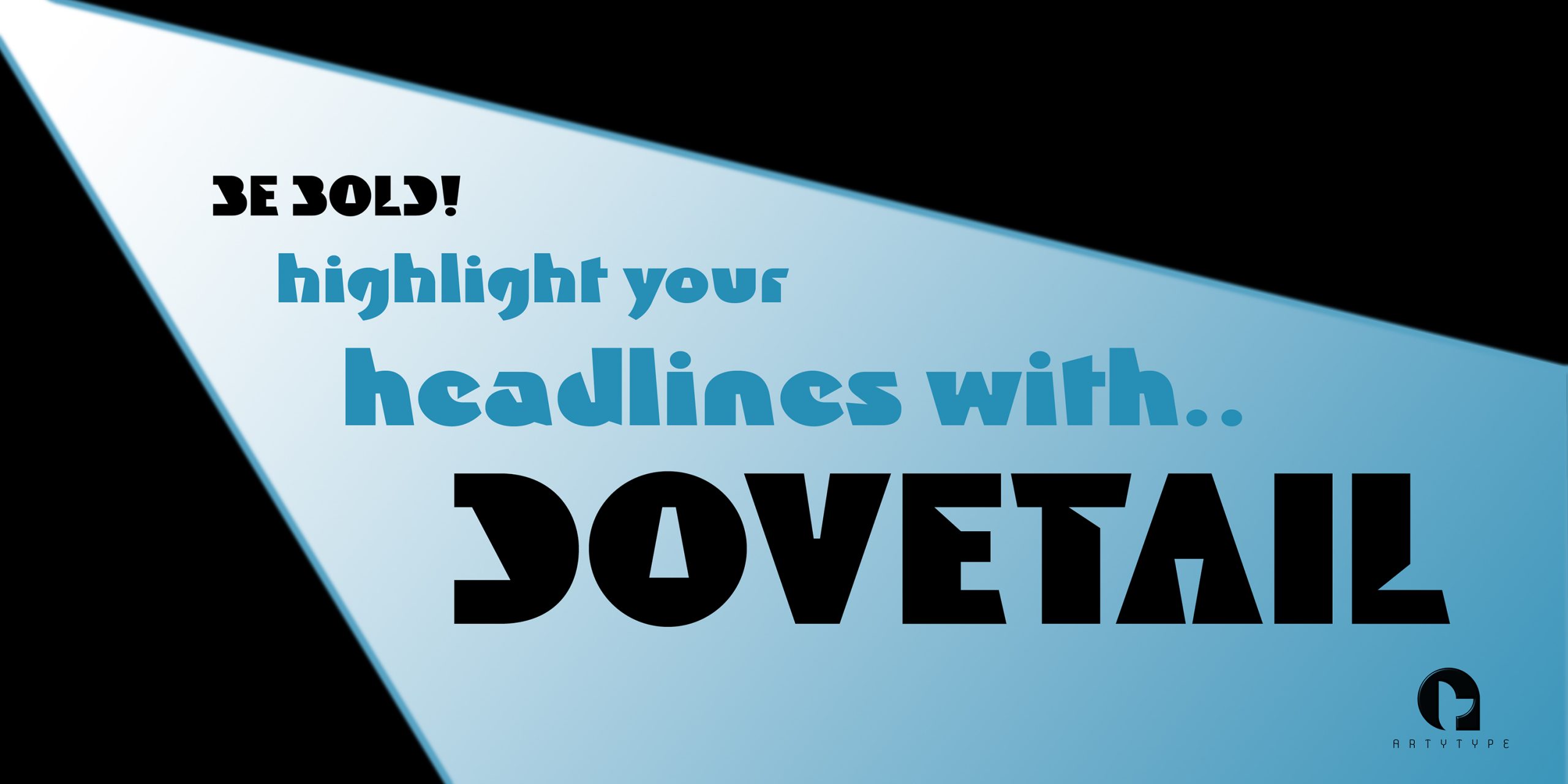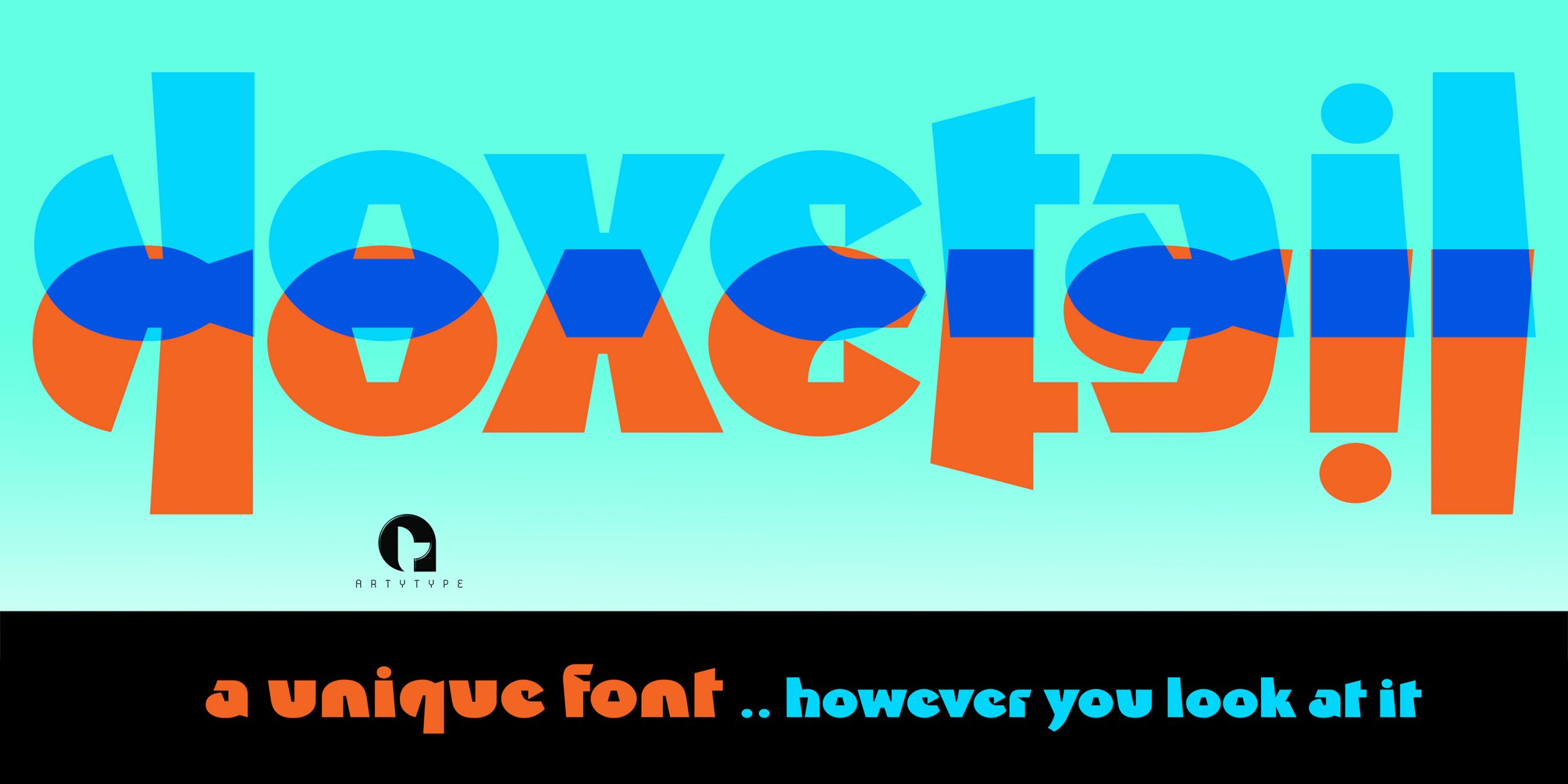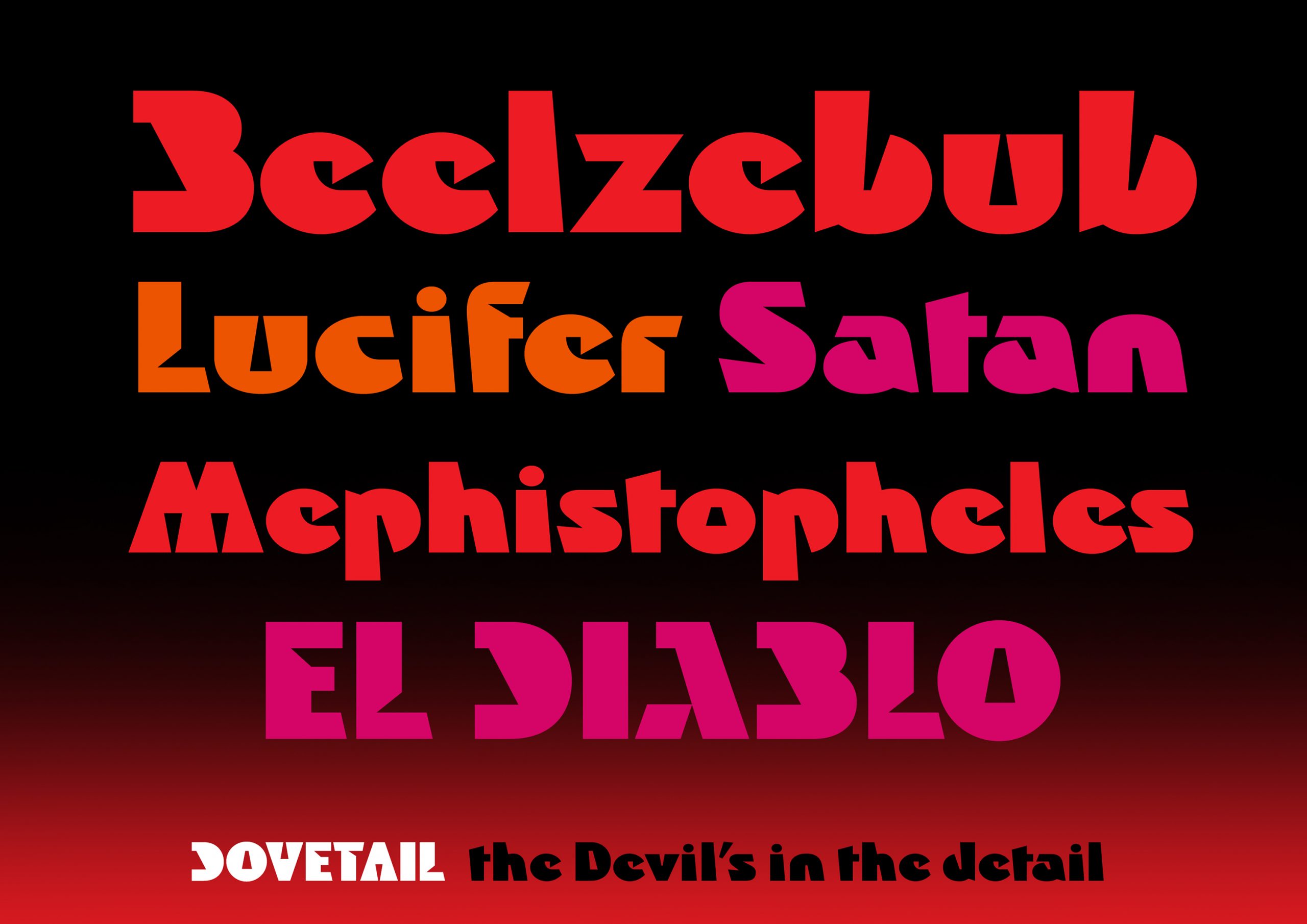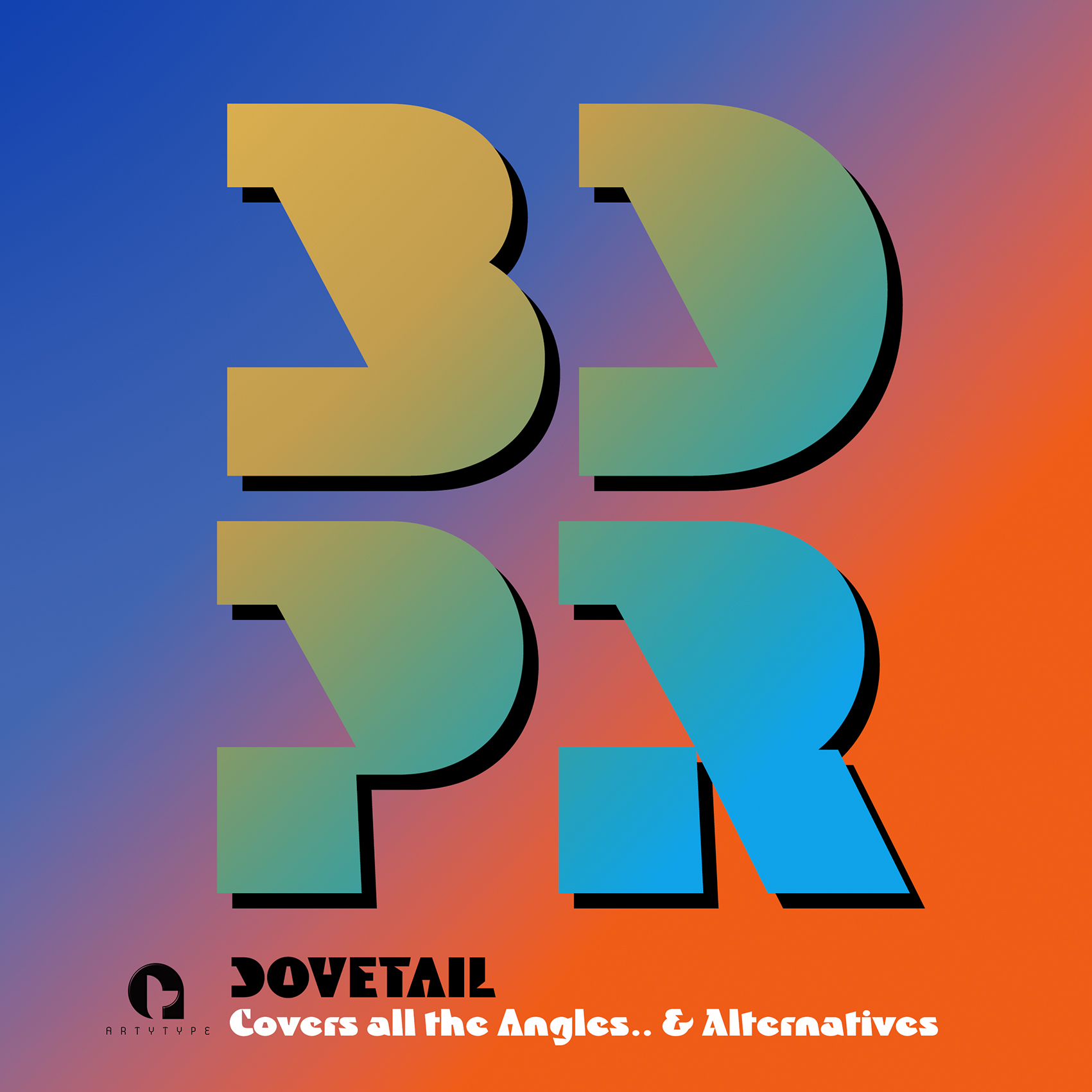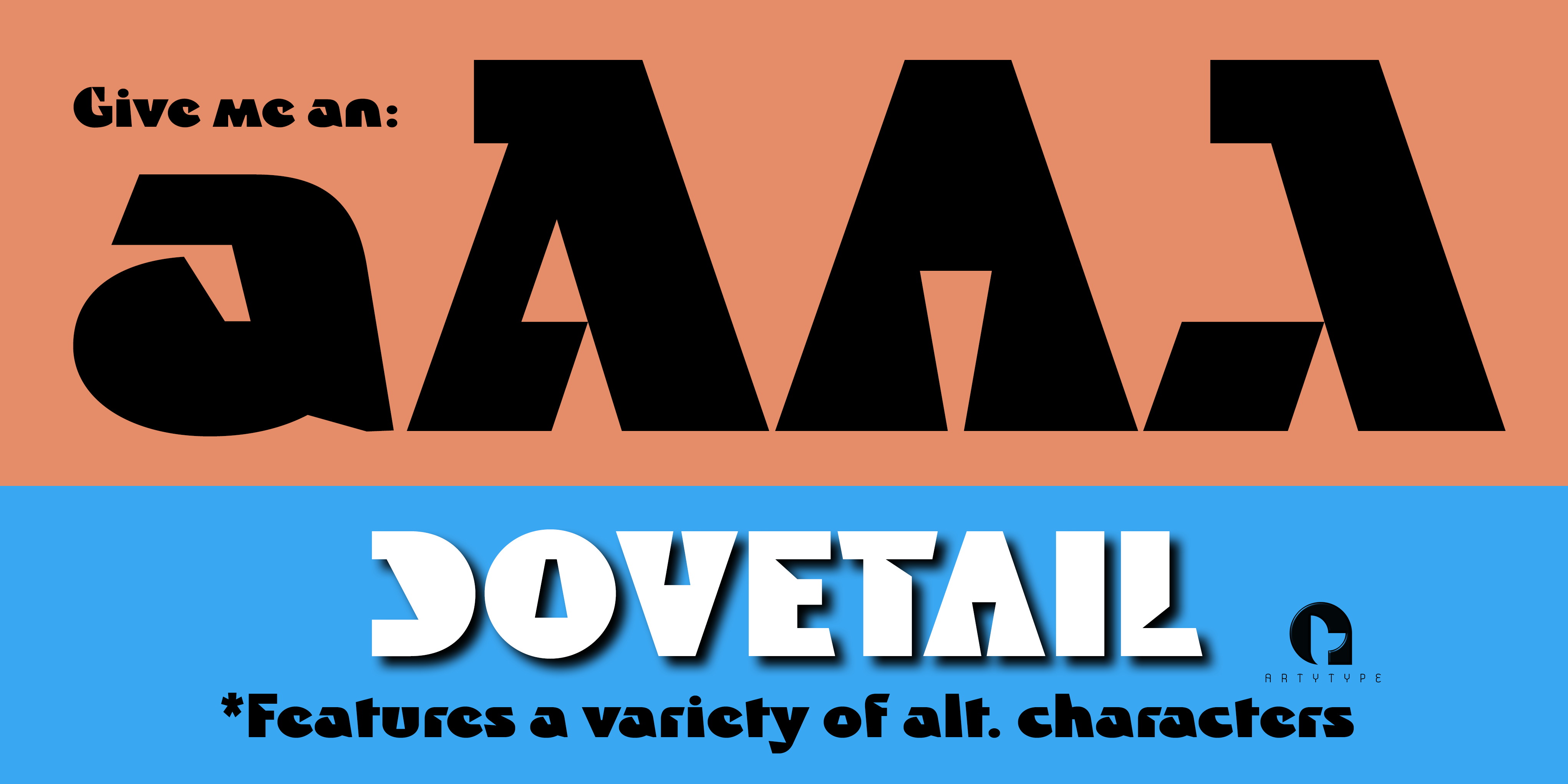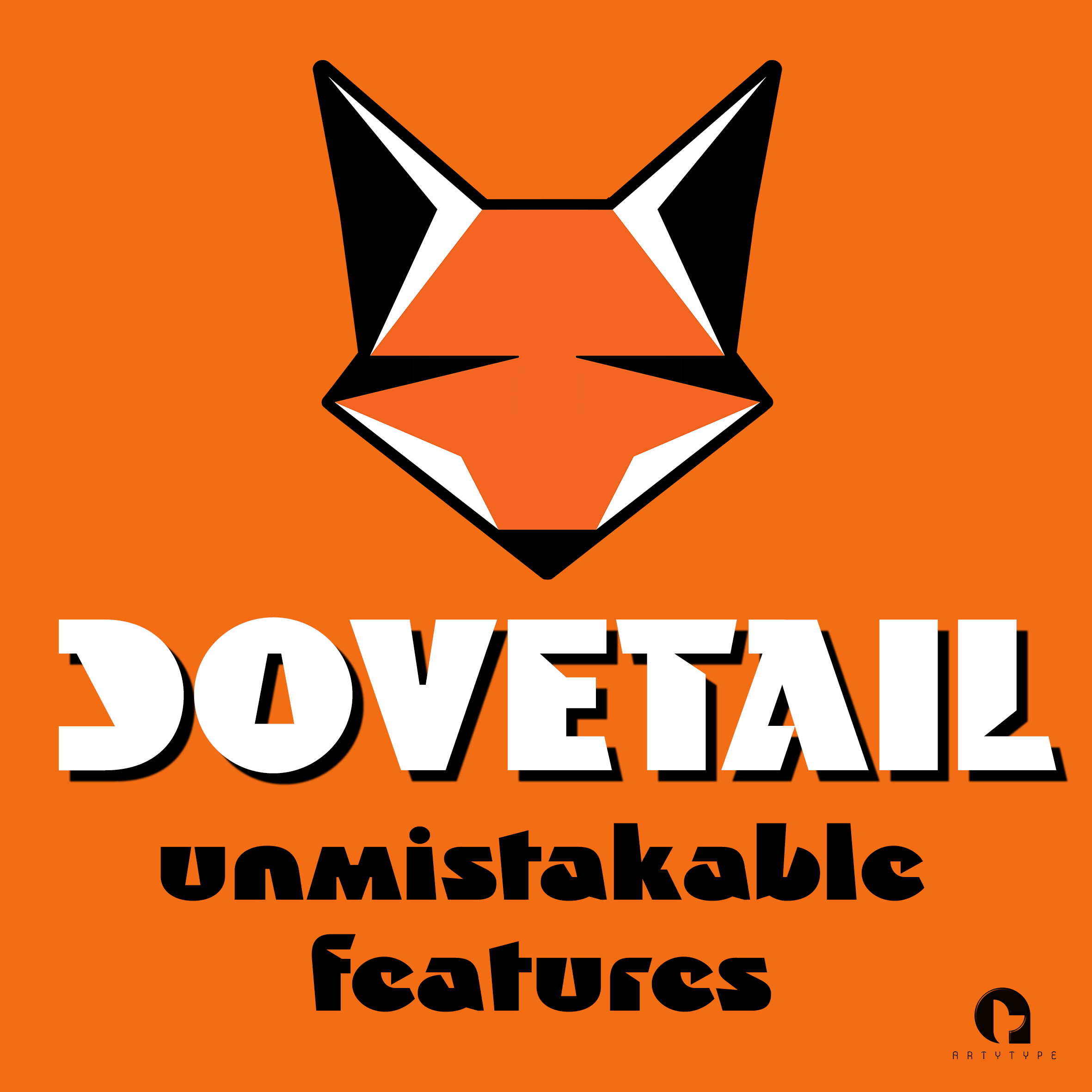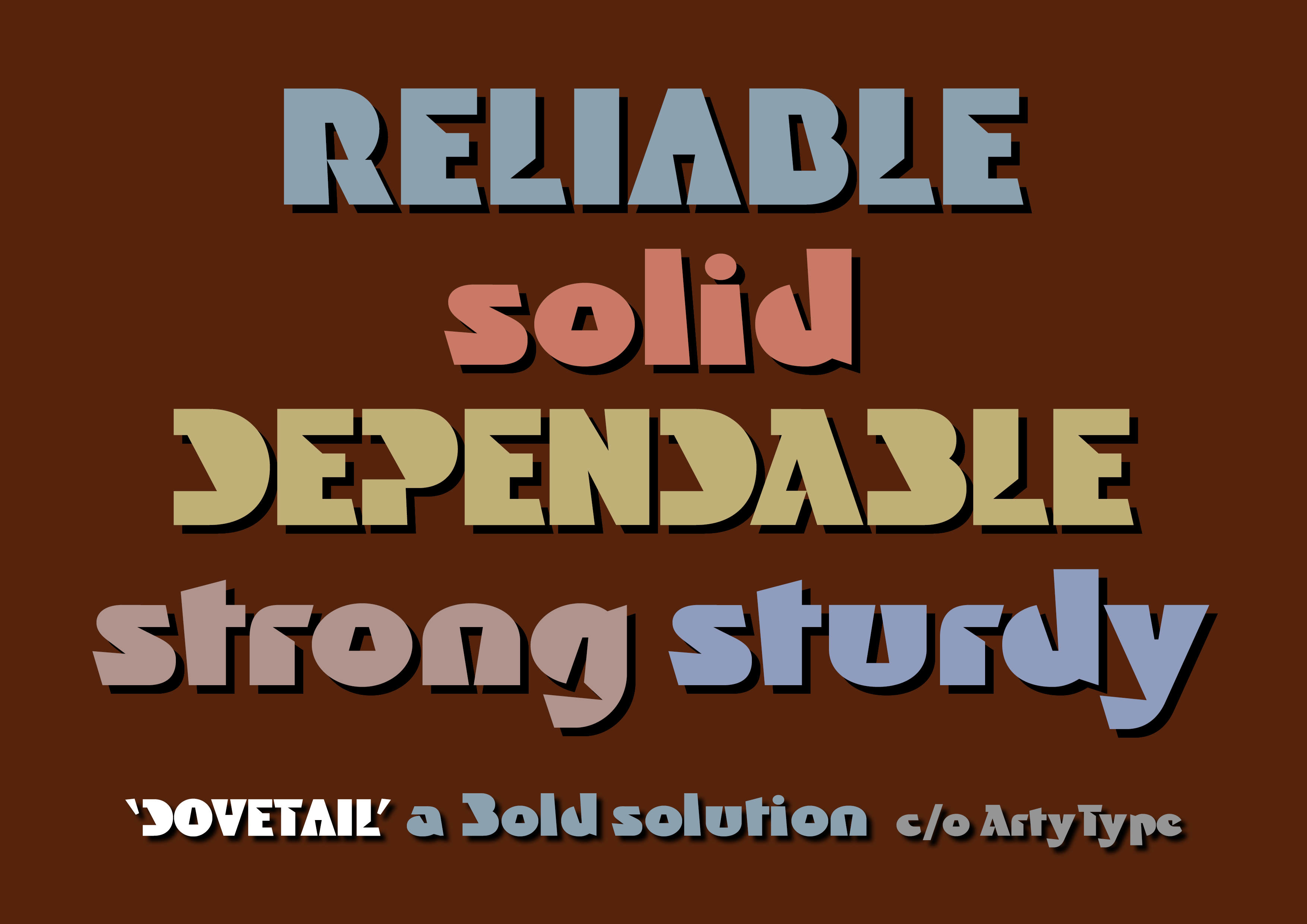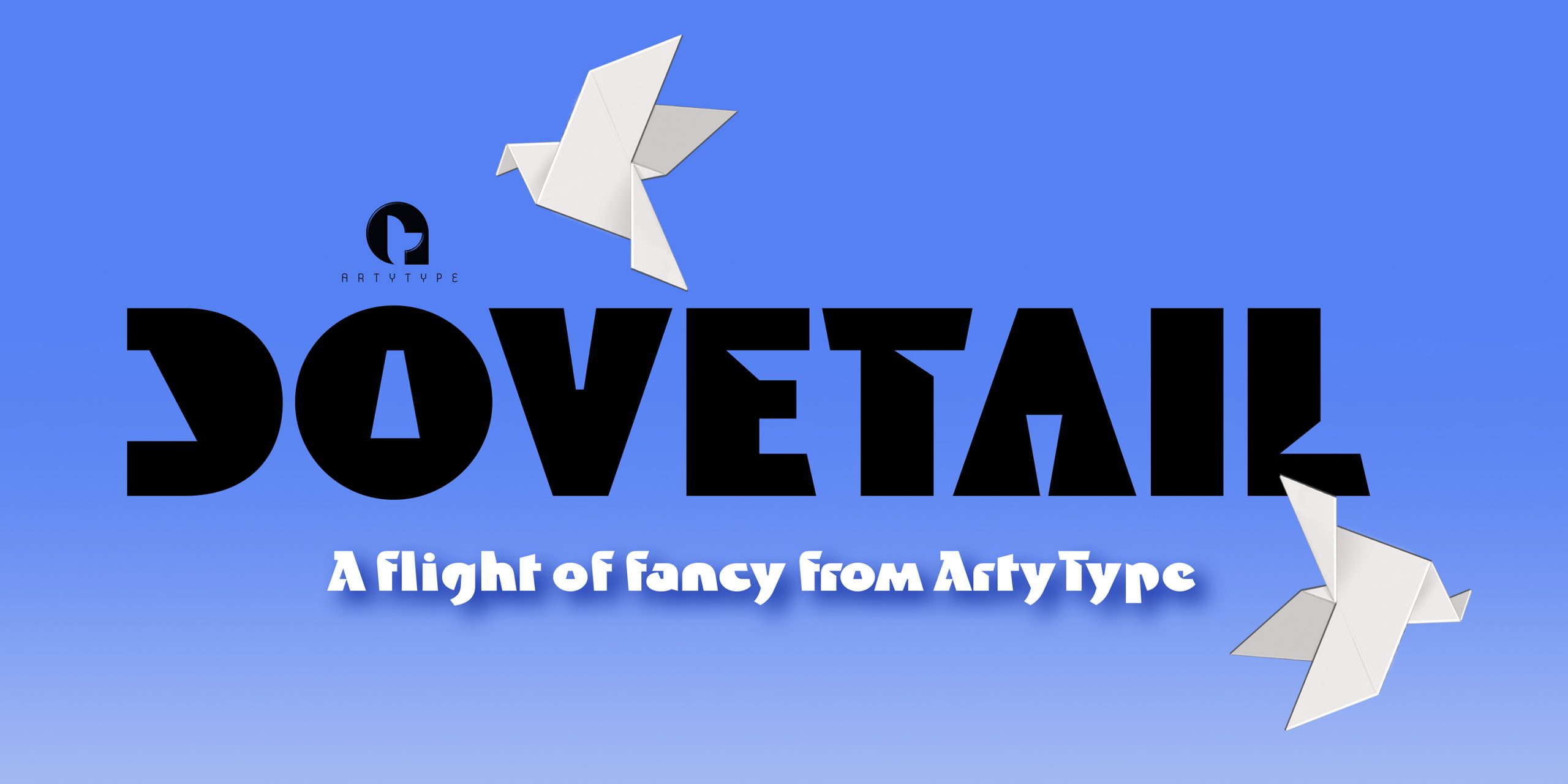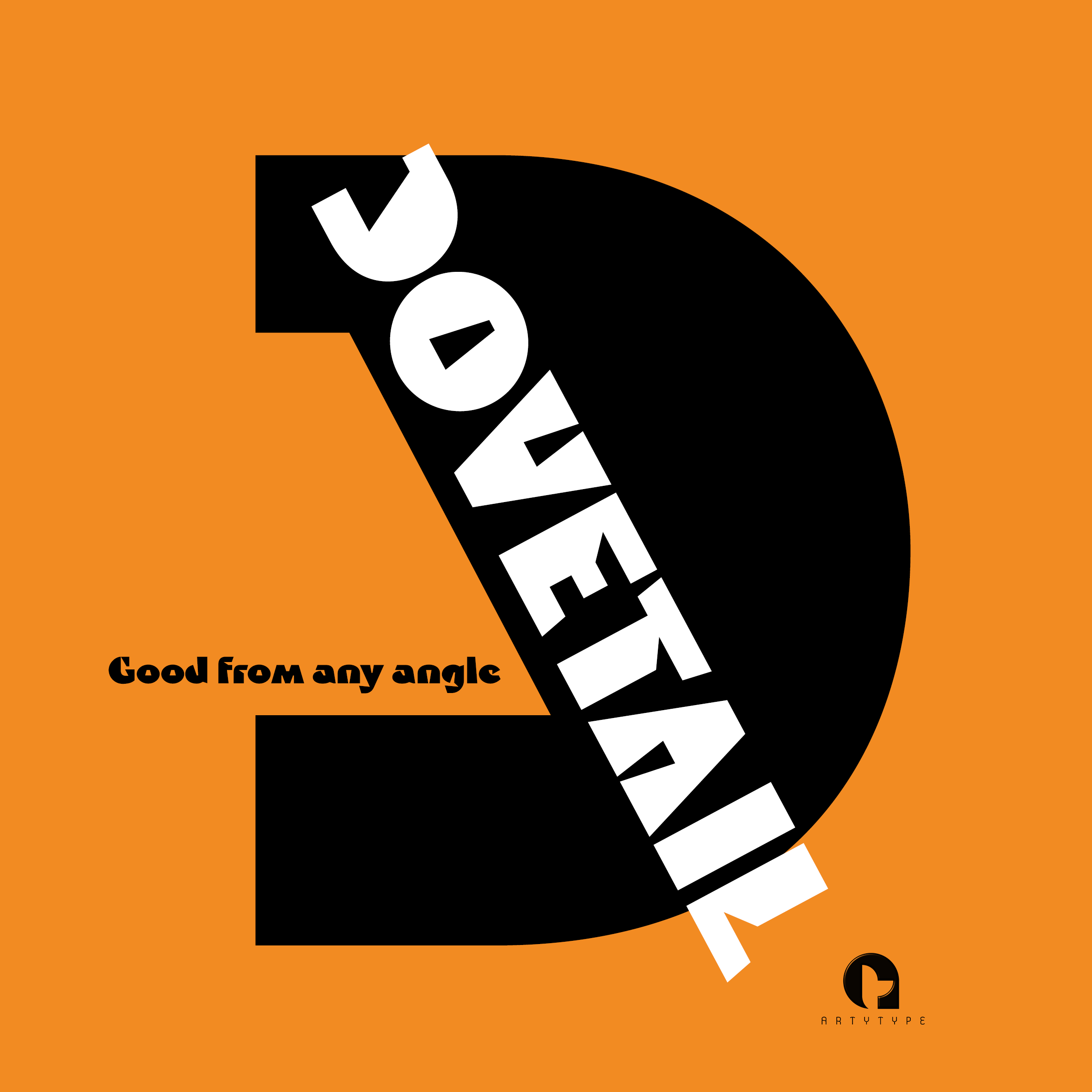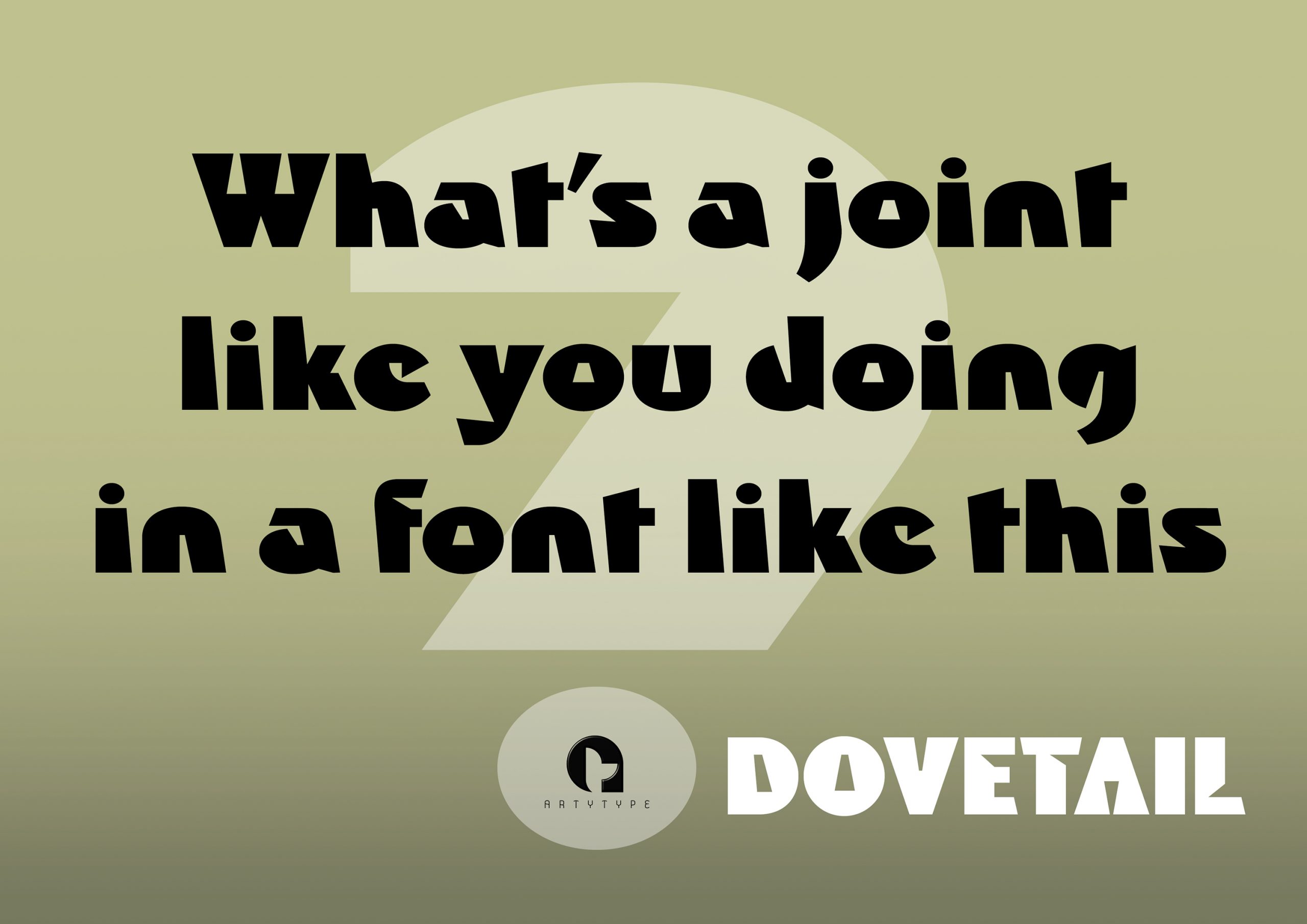
Dovetail
Dovetail is a bold, single-weight display face endowed with a distinctive styling across both upper & lower cases, enabling it to project its unique personality within any given format.
The distinct angular trait to this typeface reflects the characteristic dovetail joints found in bespoke quality furniture, hence the descriptive name tag.
The default set also comes with an ample amount of alternate characters, helping to vary and personalise your word settings; plus, as with many other ArtyType fonts, such colourful characters provide the option to stand alone, potentially acting as logos or icons.